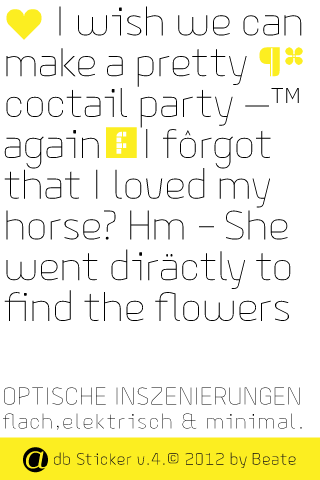
Love the ligatures!
10/10 as always!
Nice and elegant curves, beautiful shapes. Very clean design, the hallmarks of your style all over. There are a few minor things to consider. I am not sure of the "i" and "j". The pilcrow/paragraph sign (¶) is a full height character, that includes the descender zone as well. The eszett/scharfes S (ß): only the cursive versions have descenders. Yours look more like the Greek beta (β). No double dagger (‡)? The heart symbol is very pretty.
This is an outstanding work that oozes quality. 10/10
Elegant, very clean, and beautiful, as always!
Simply beautiful.
the S, &, Numbers and the st ligature are sublime.
*jaw simply hits the floor*
Gorgeous!
*wonders how she did those curves*
EPIC! EPIC! EPIC! I think I can say that again! EPIC! EPIC! EPIC!
i`m in love
Nice. There are some great touches in here. Good job!